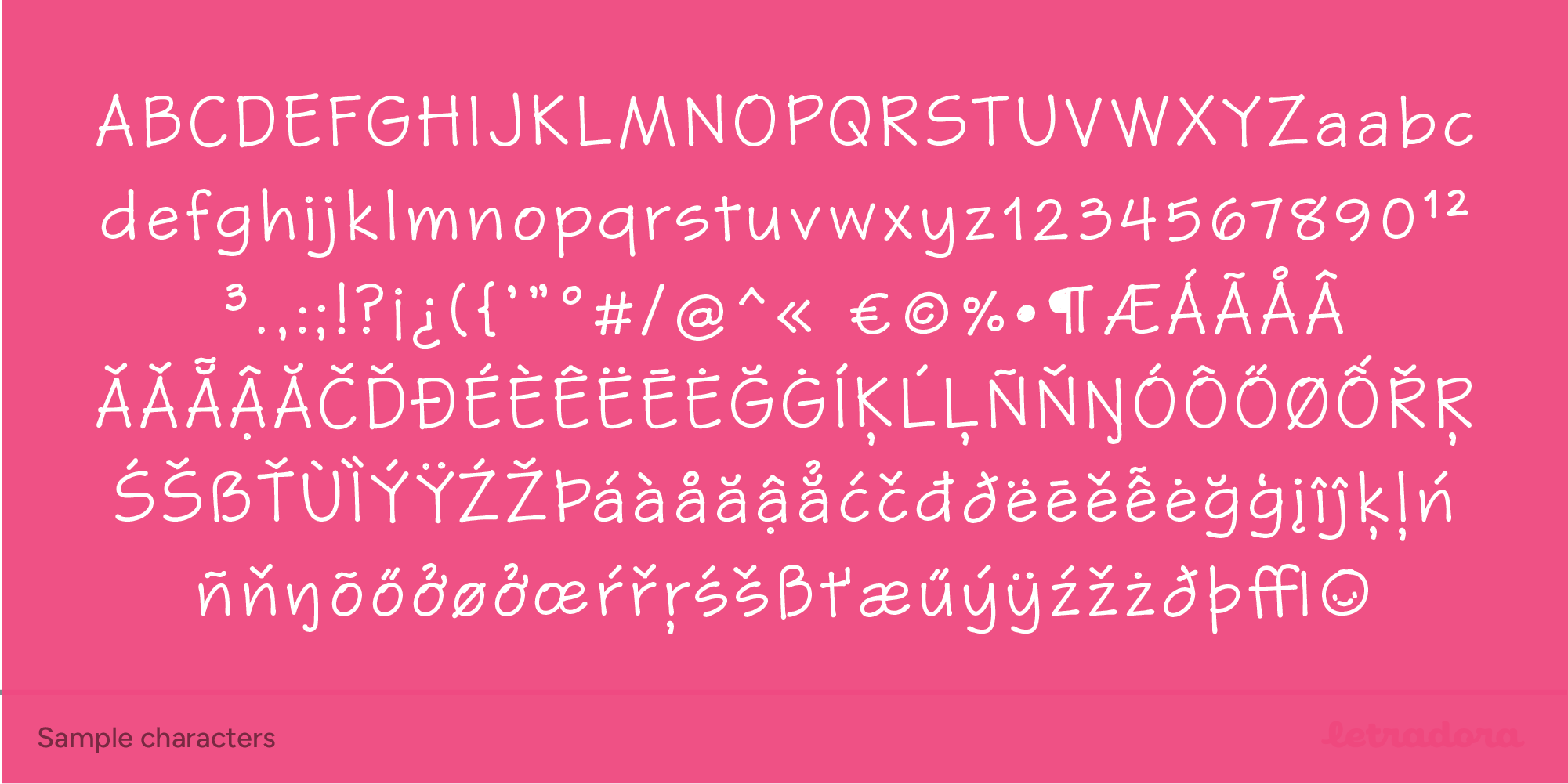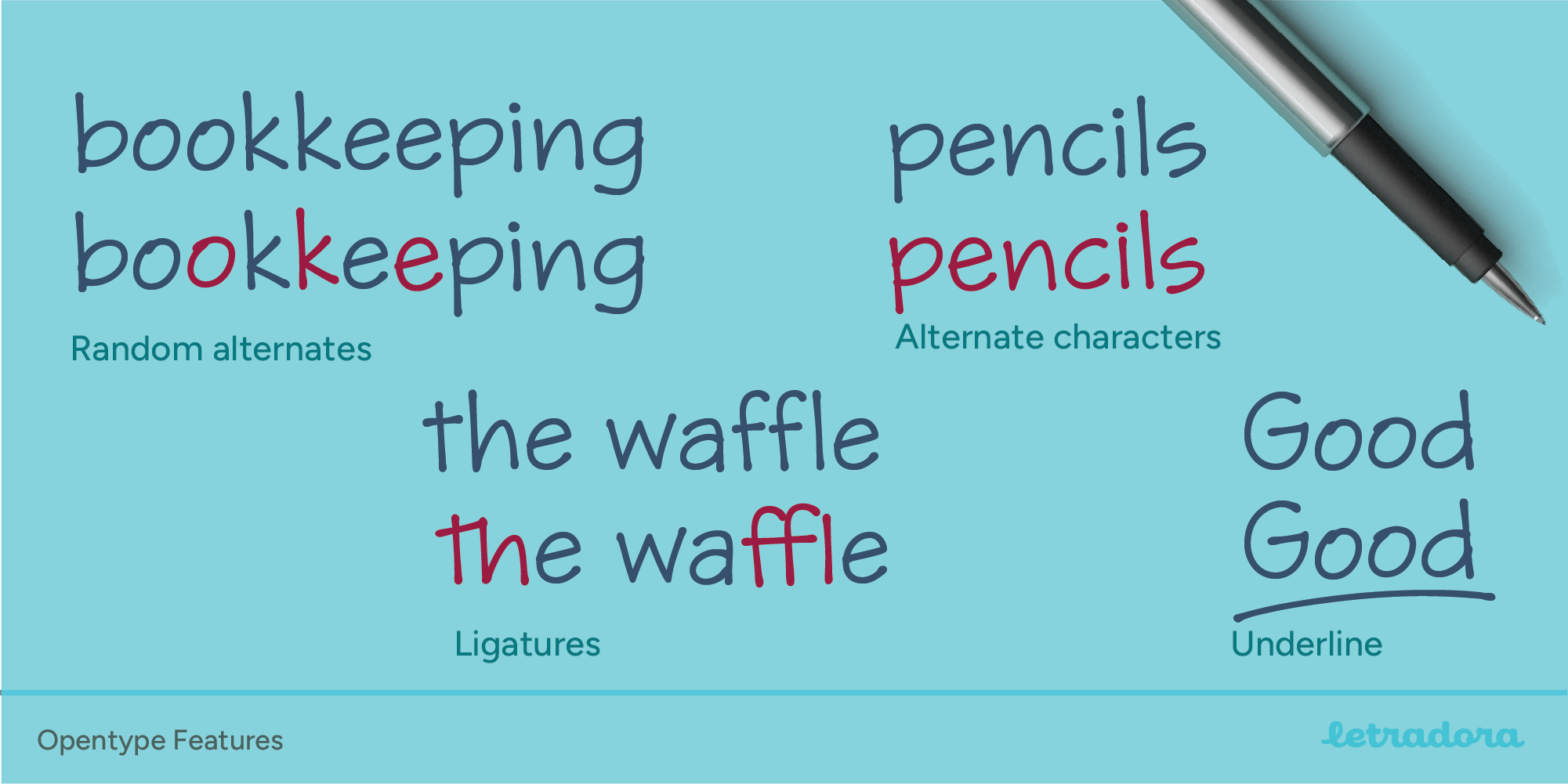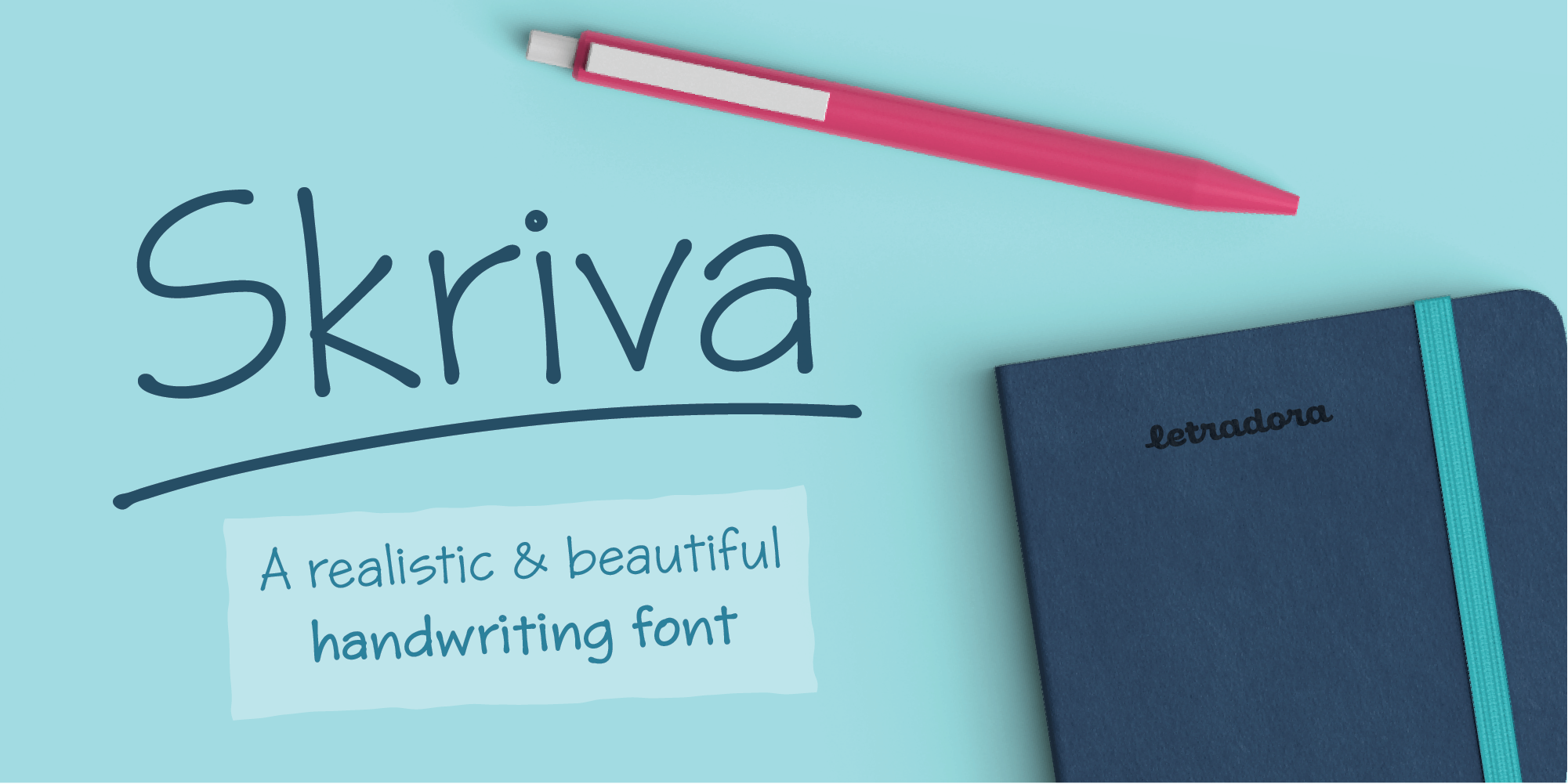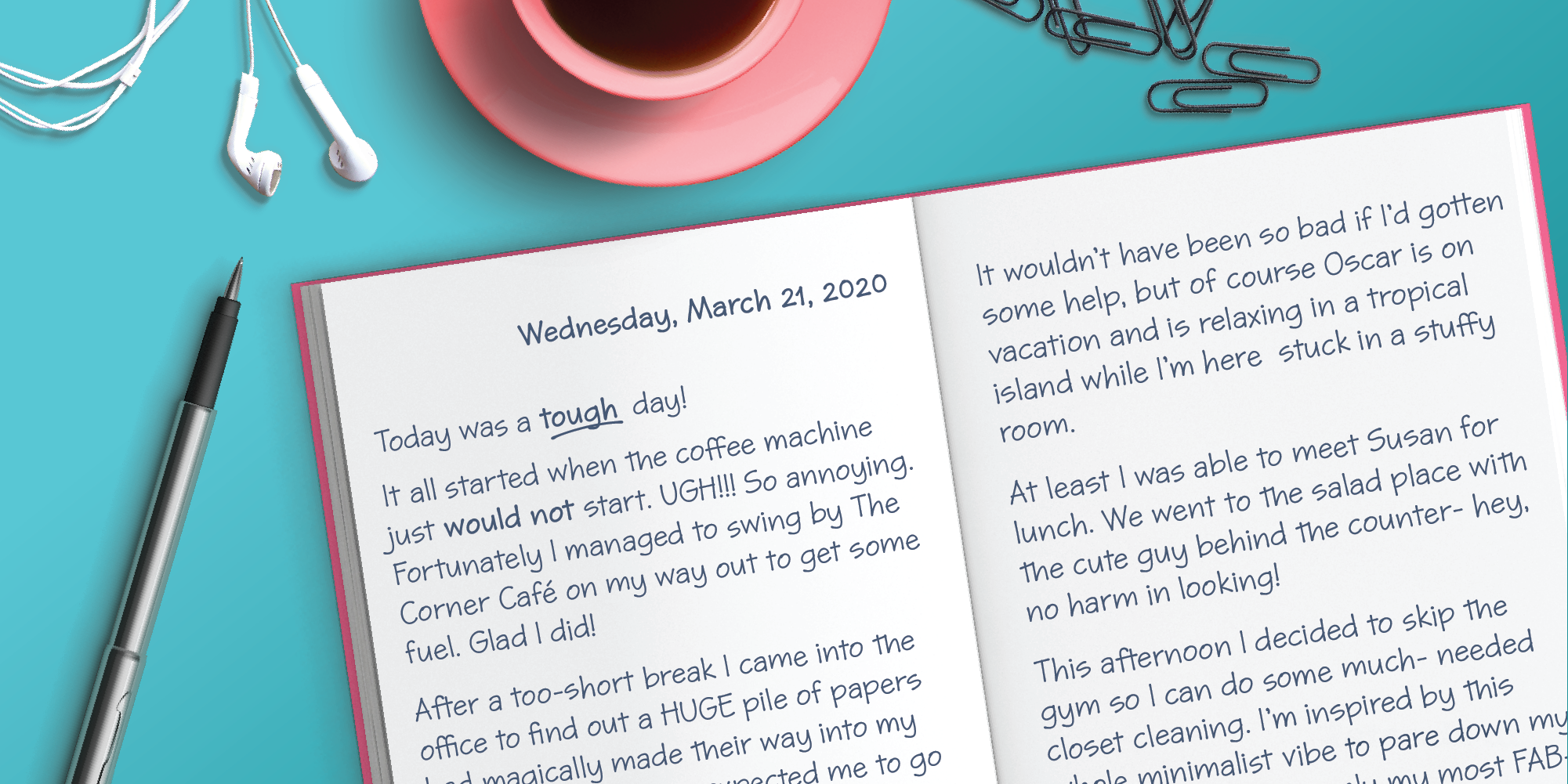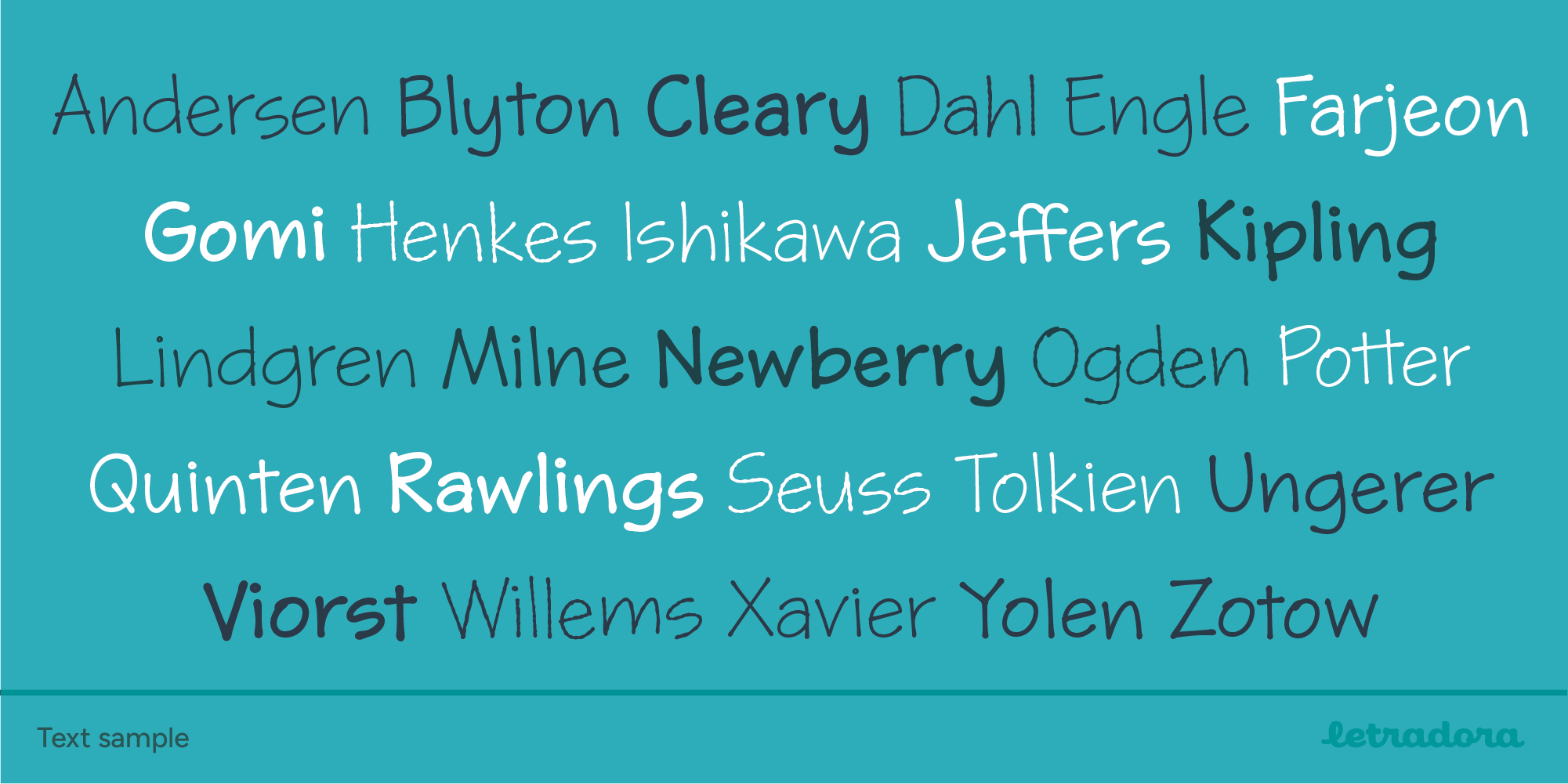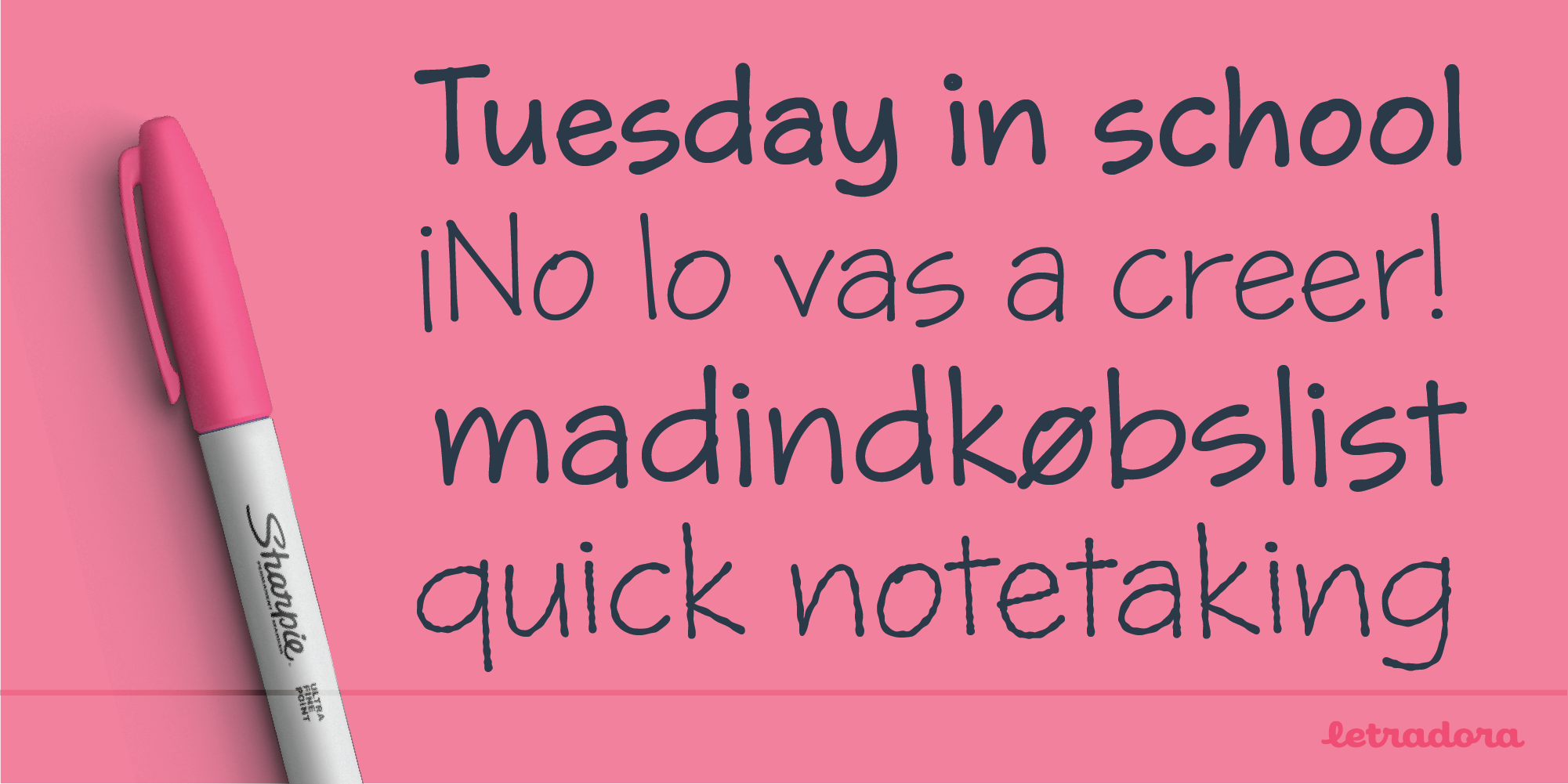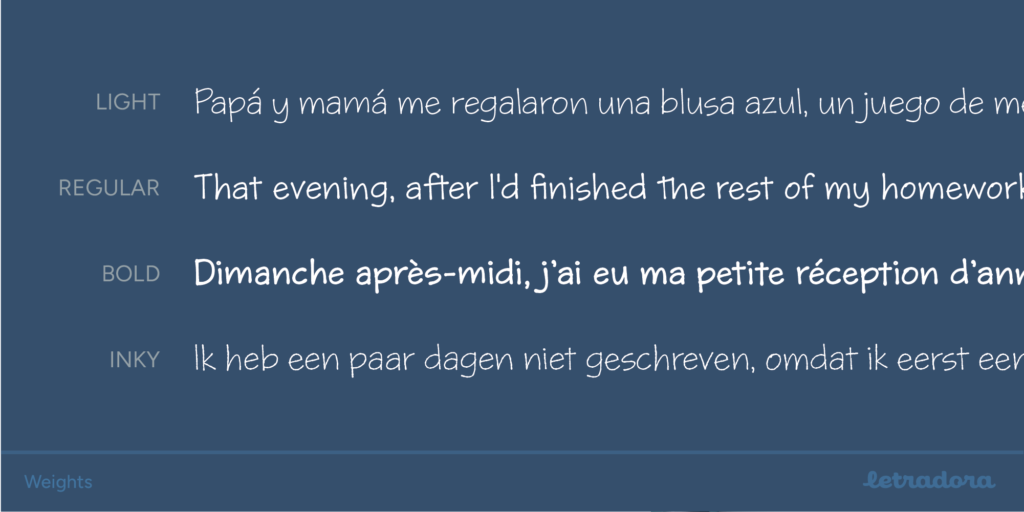
Skriva
A beautifully clean handwriting font that balances legibility and uniqueness.
Skriva is the handwriting we’d all like to have: neat and legible, still natural looking. It as a super complete character set with support for over 200 latin languages. It includes advanced OpenType features, such as random alternate characters, to make it look even more natural.
Use Skriva wherever you need a personal touch on your texts.